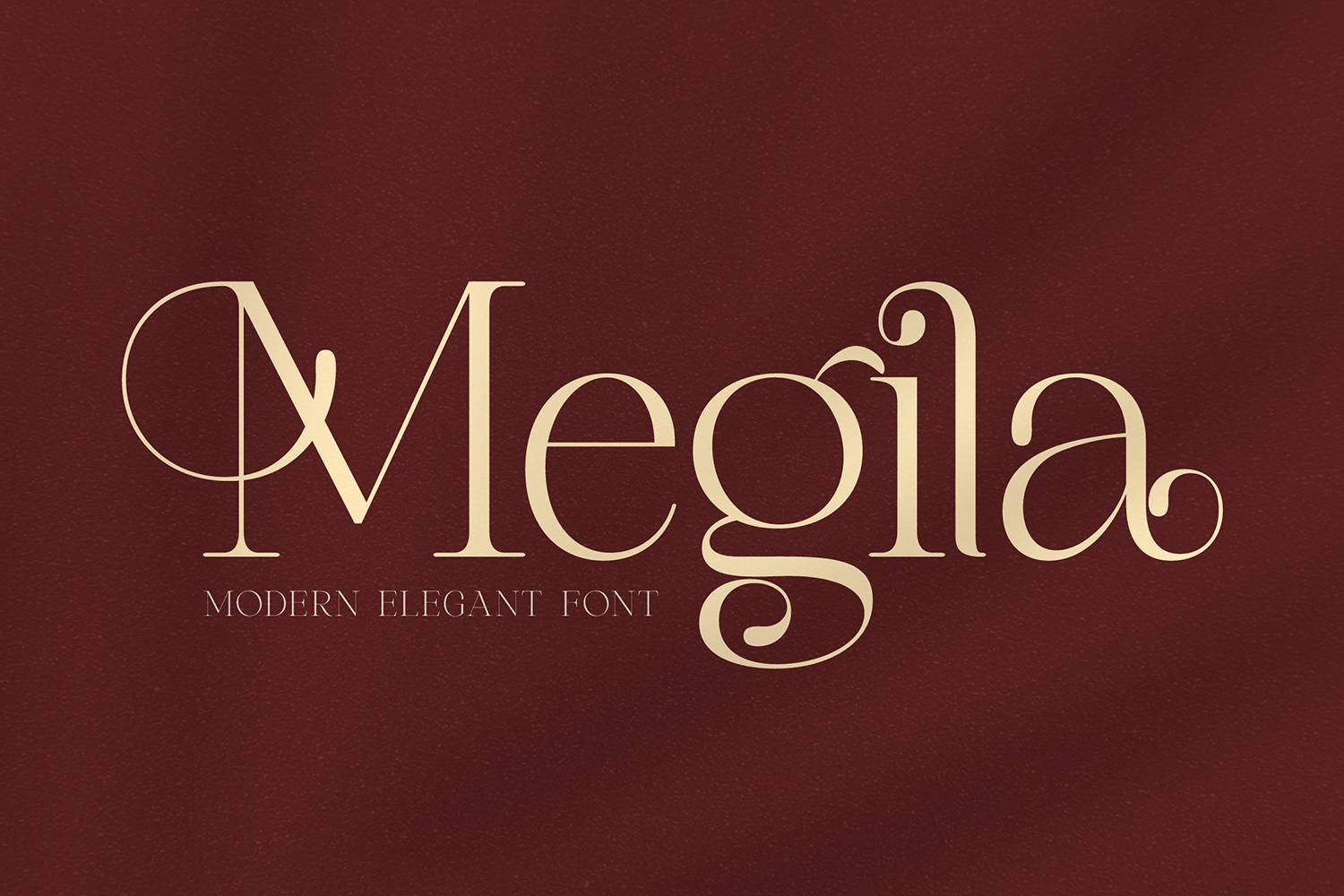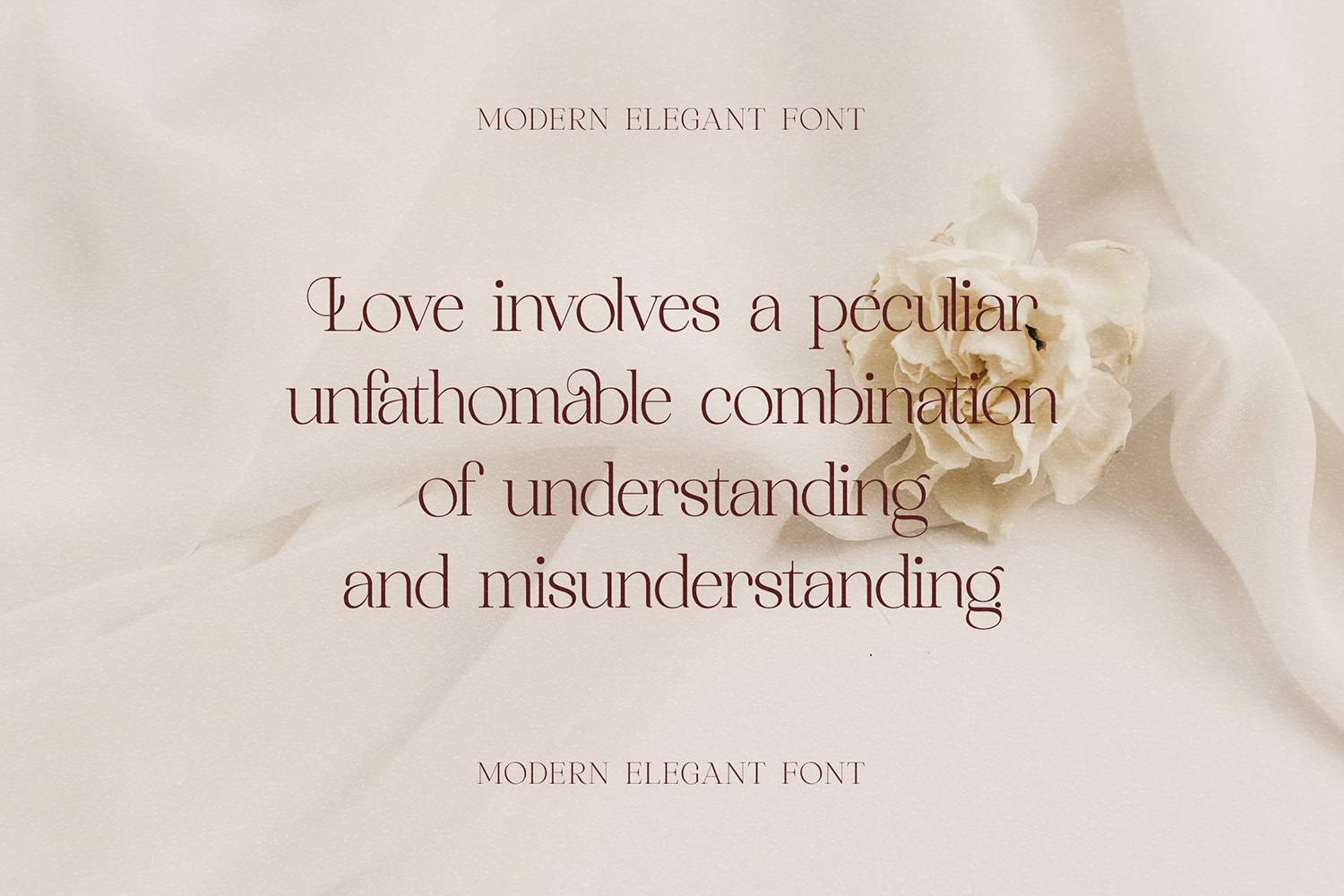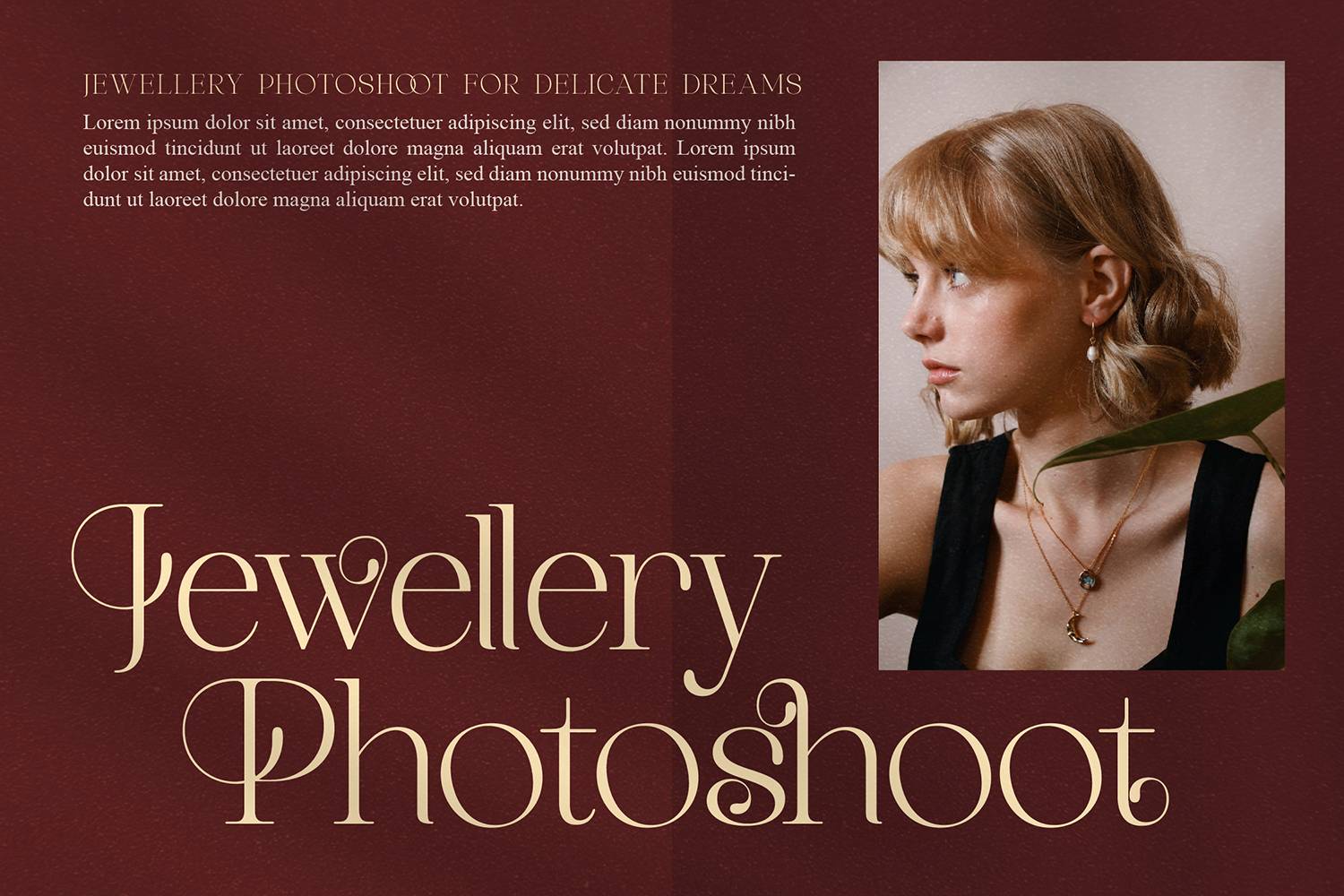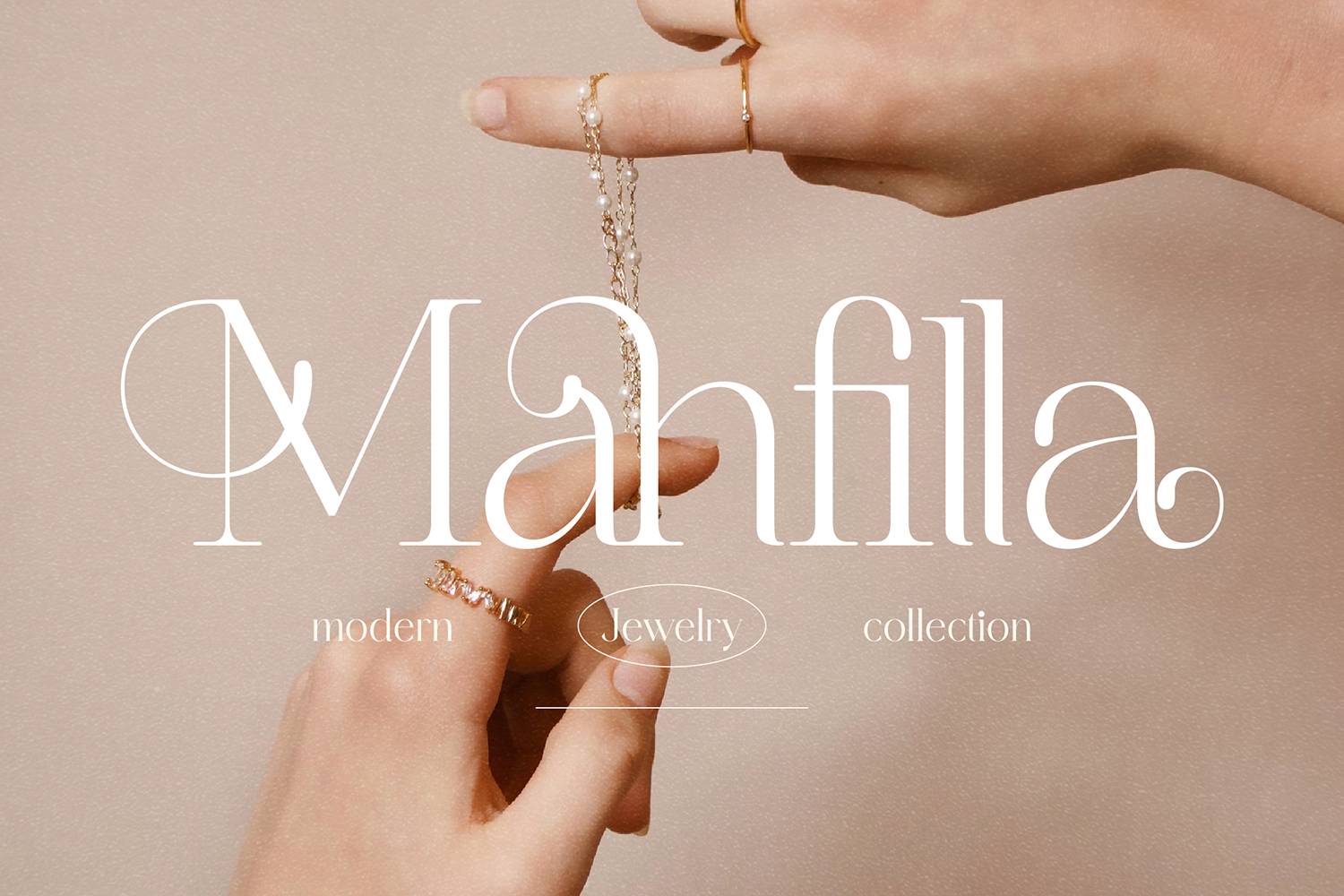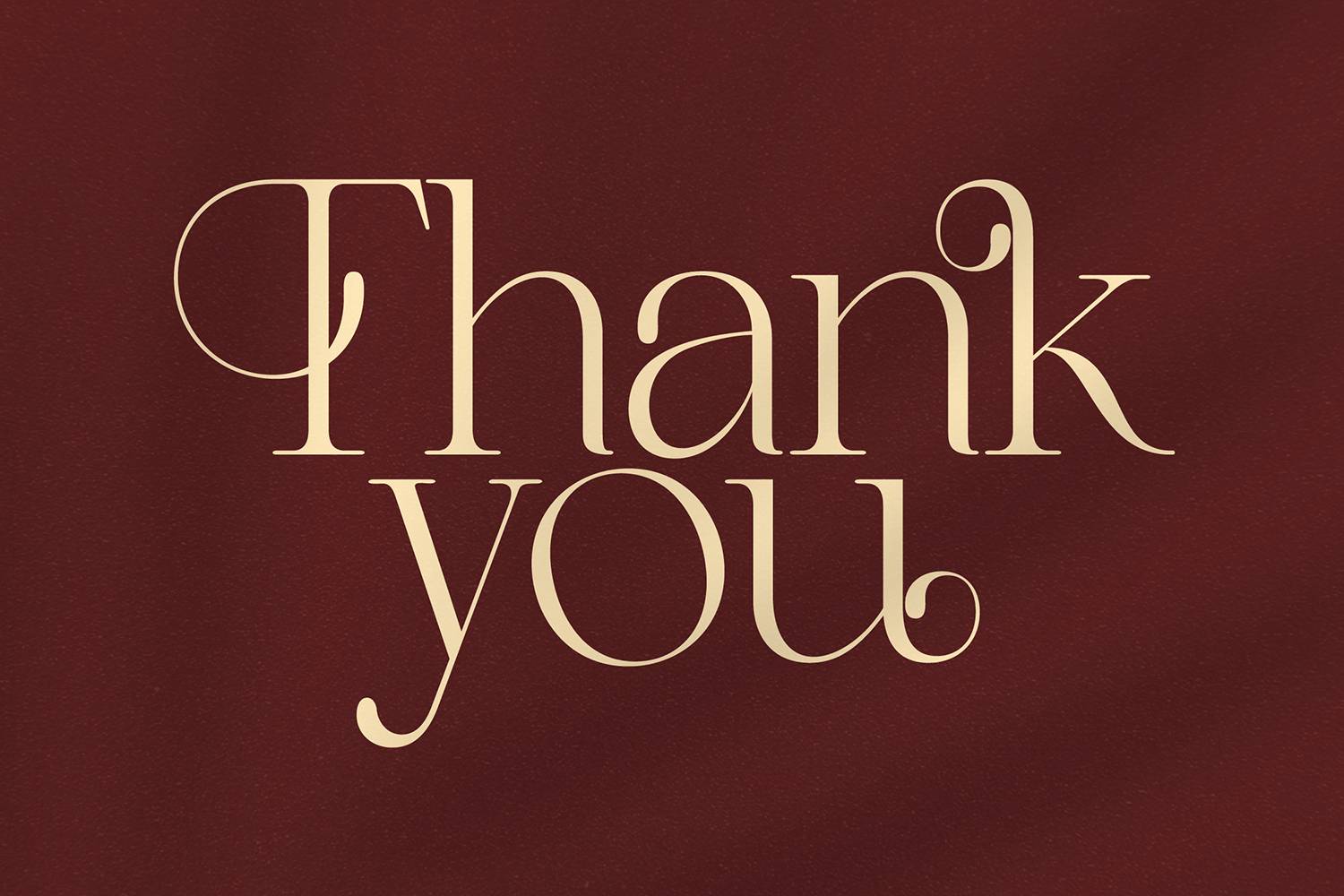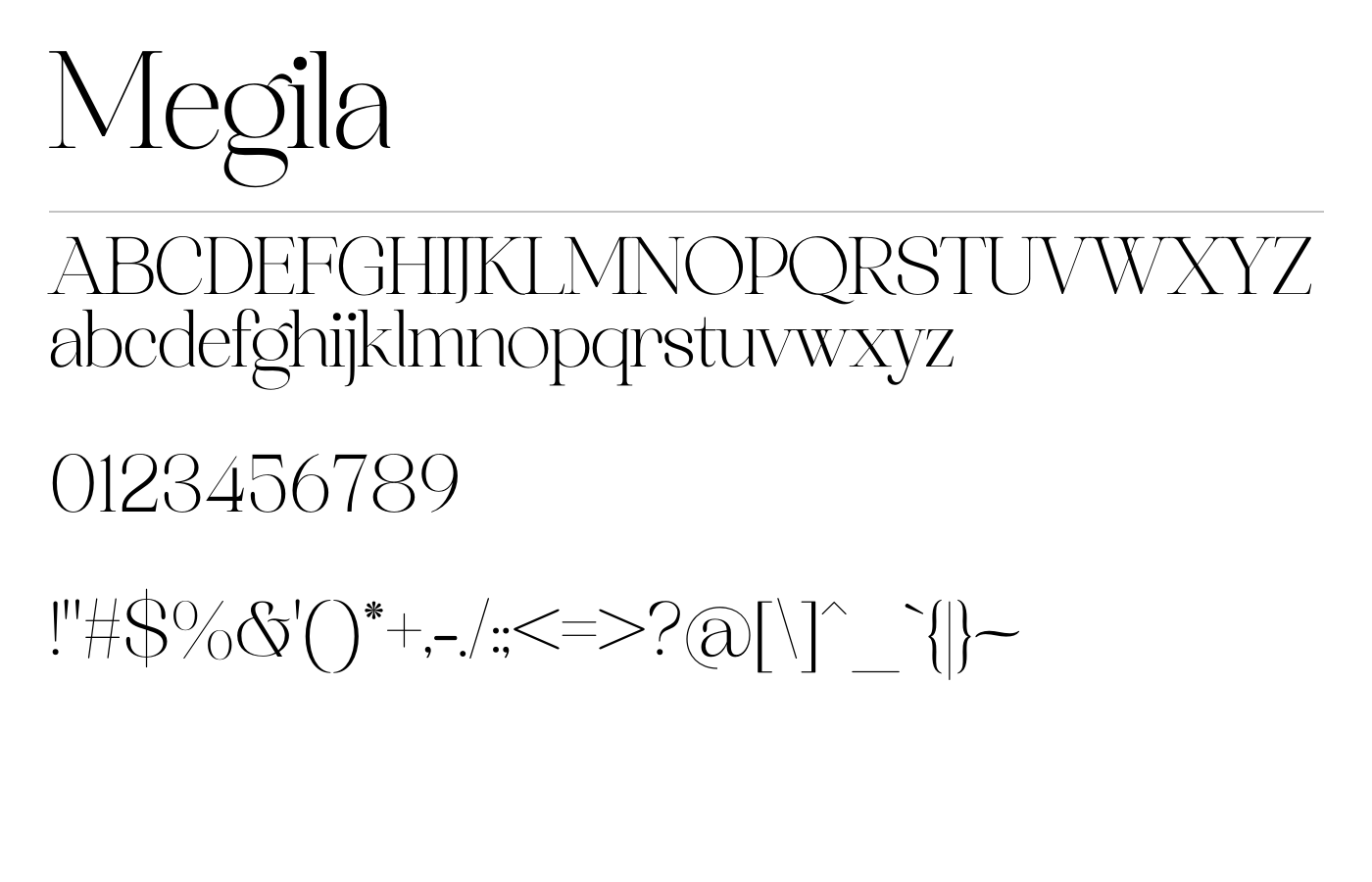
Megila is a refined modern serif font characterized by its high contrast between thick and thin strokes, delicate serifs, and elegant, elongated letterforms. Its sophisticated style and crisp details make it perfect for luxury branding, editorial headlines, and high-end fashion design where a stylish yet readable typeface is needed. This font brings a timeless, upscale feel ideal for projects seeking a blend of classic elegance and contemporary flair.
Megila Font
About Megila Font